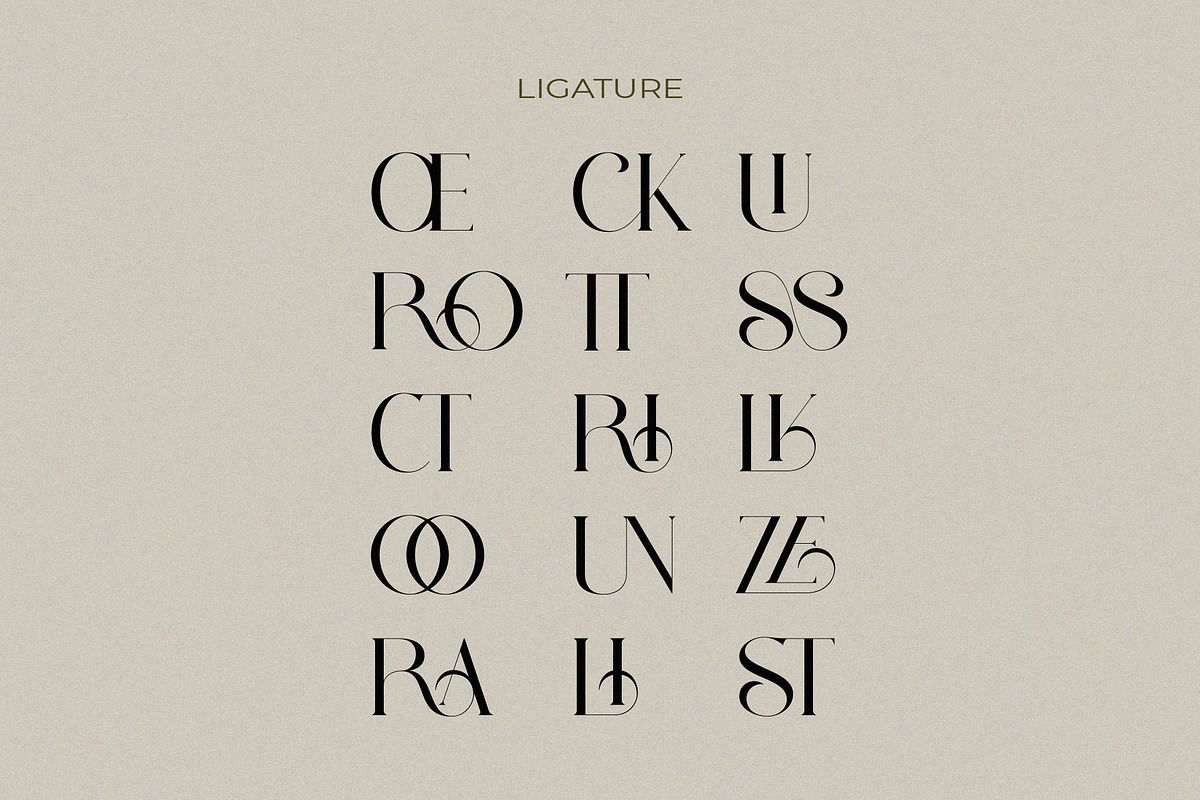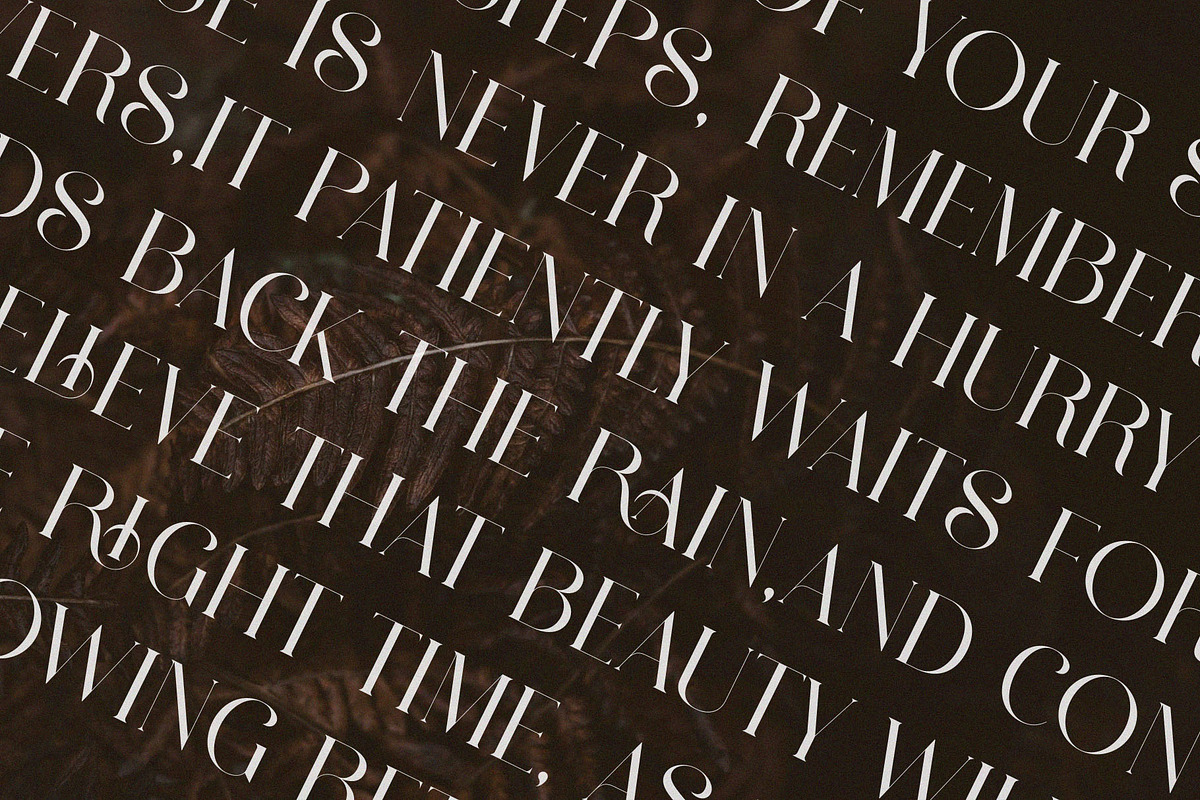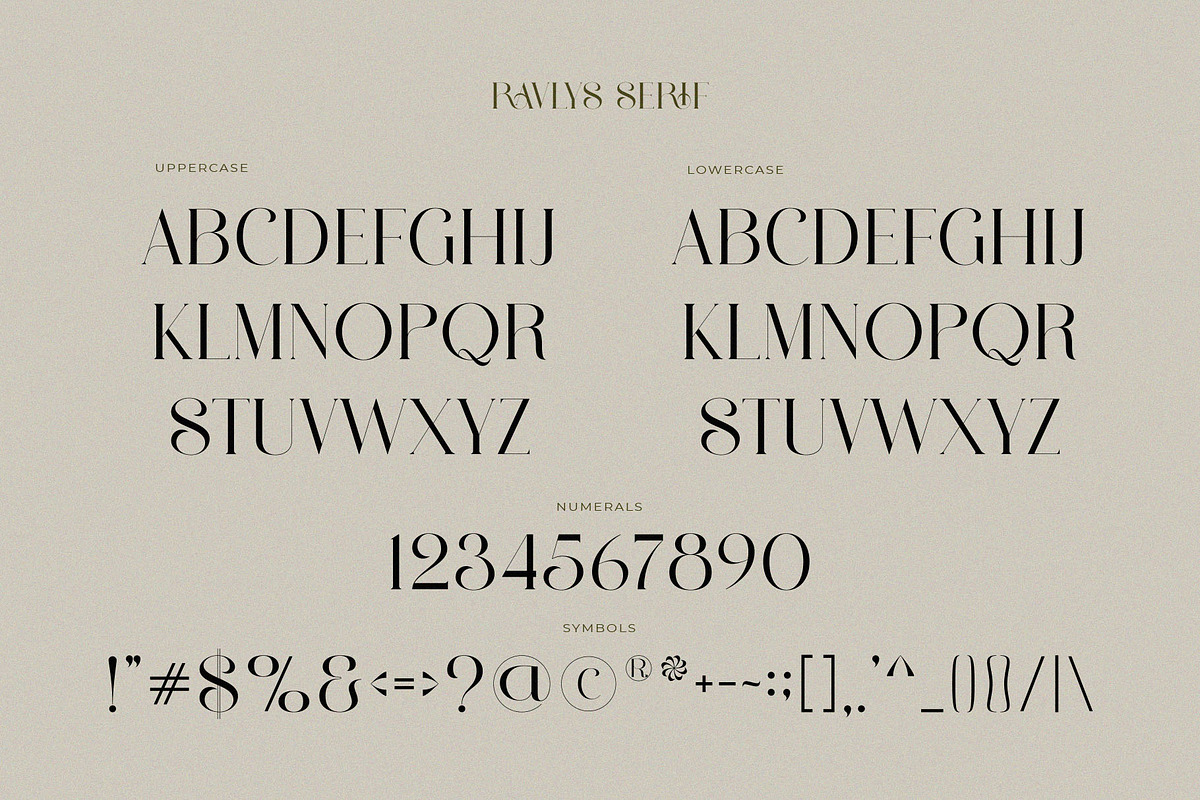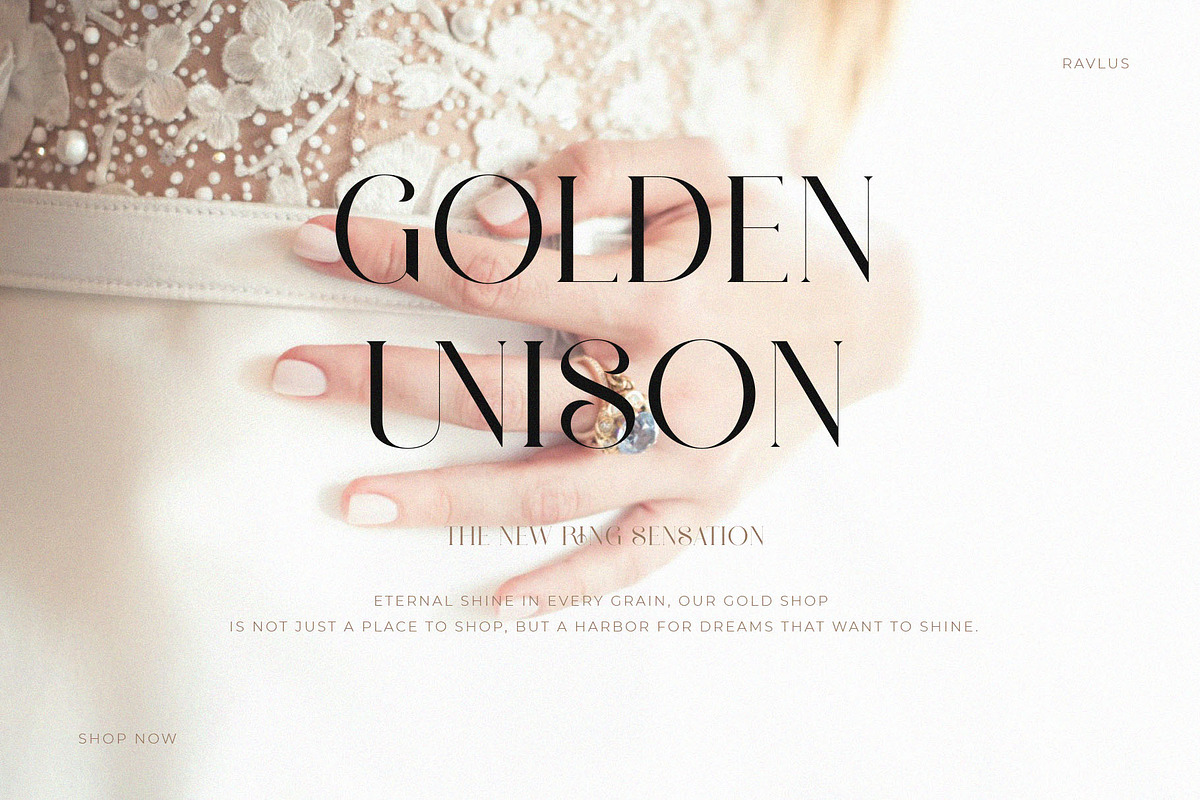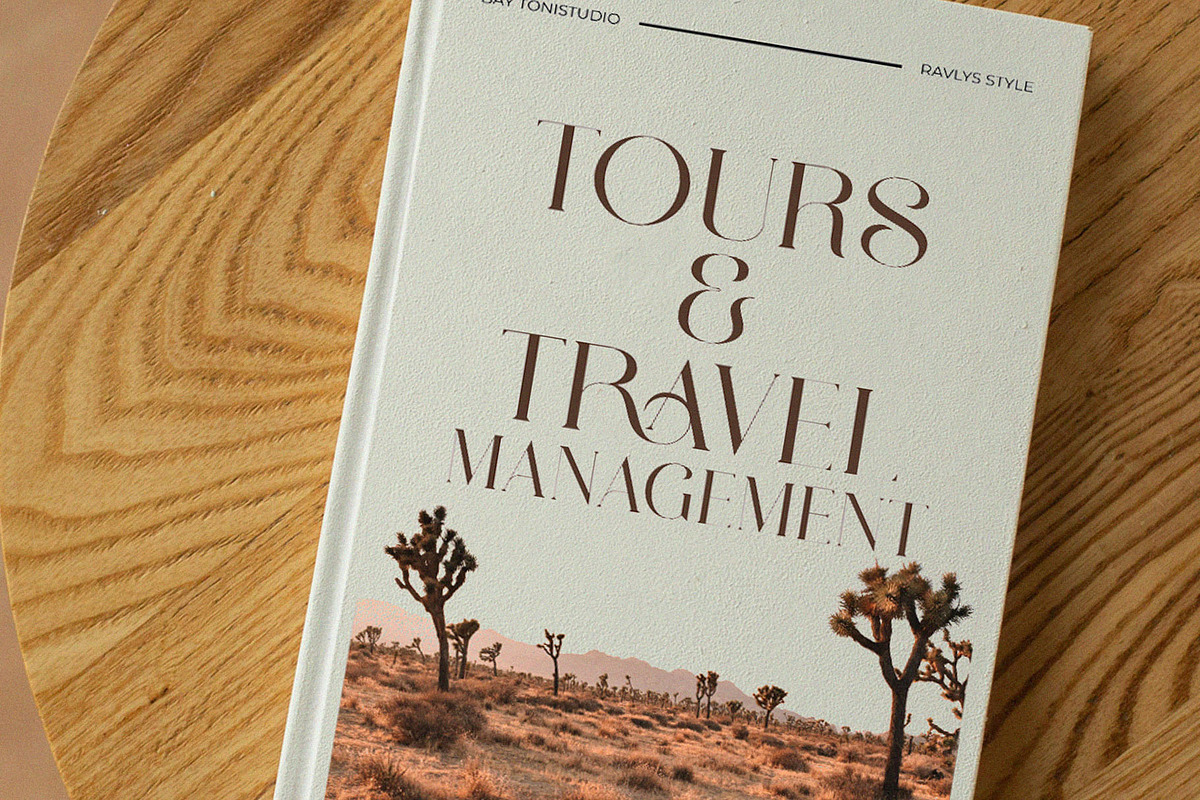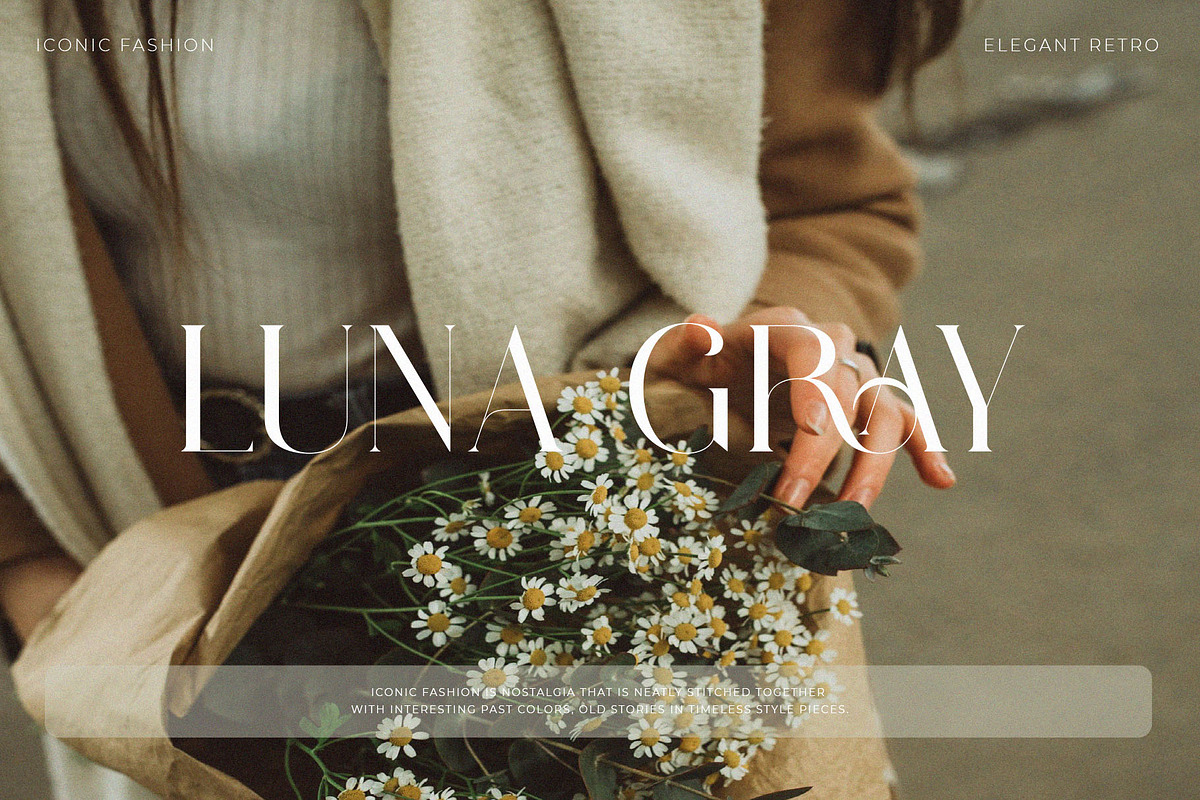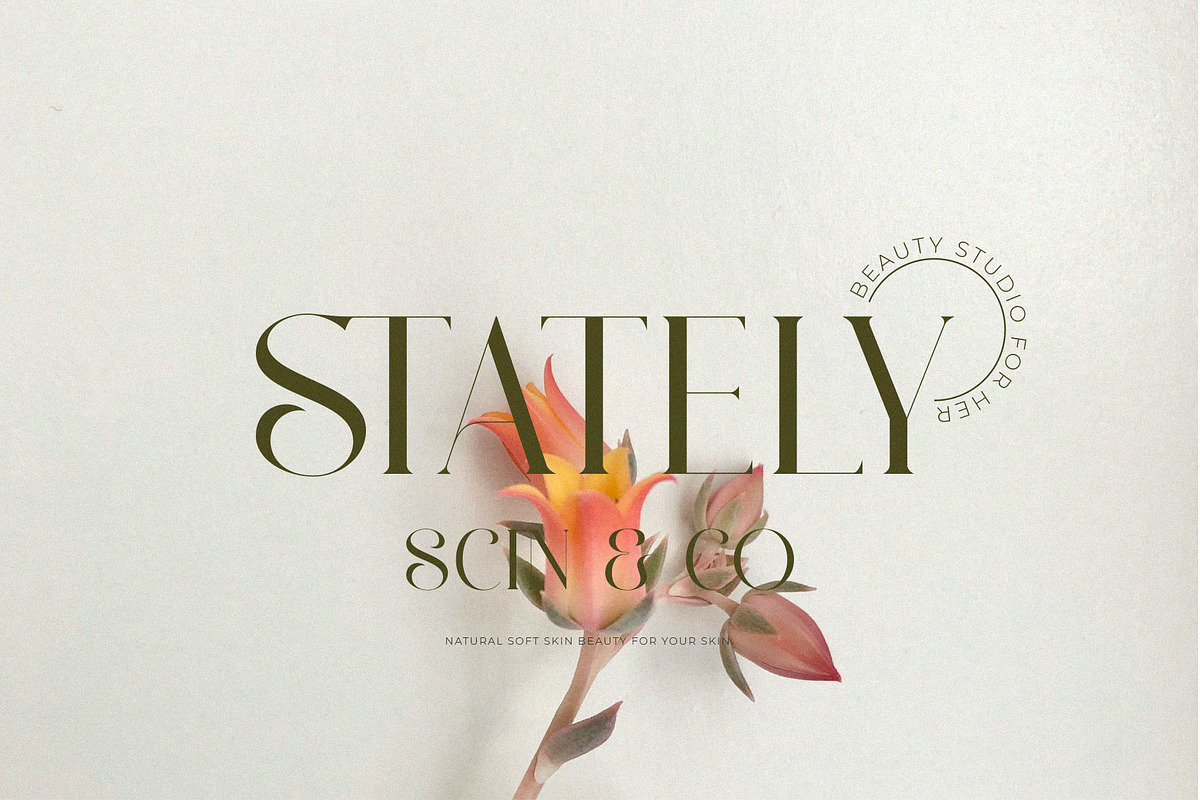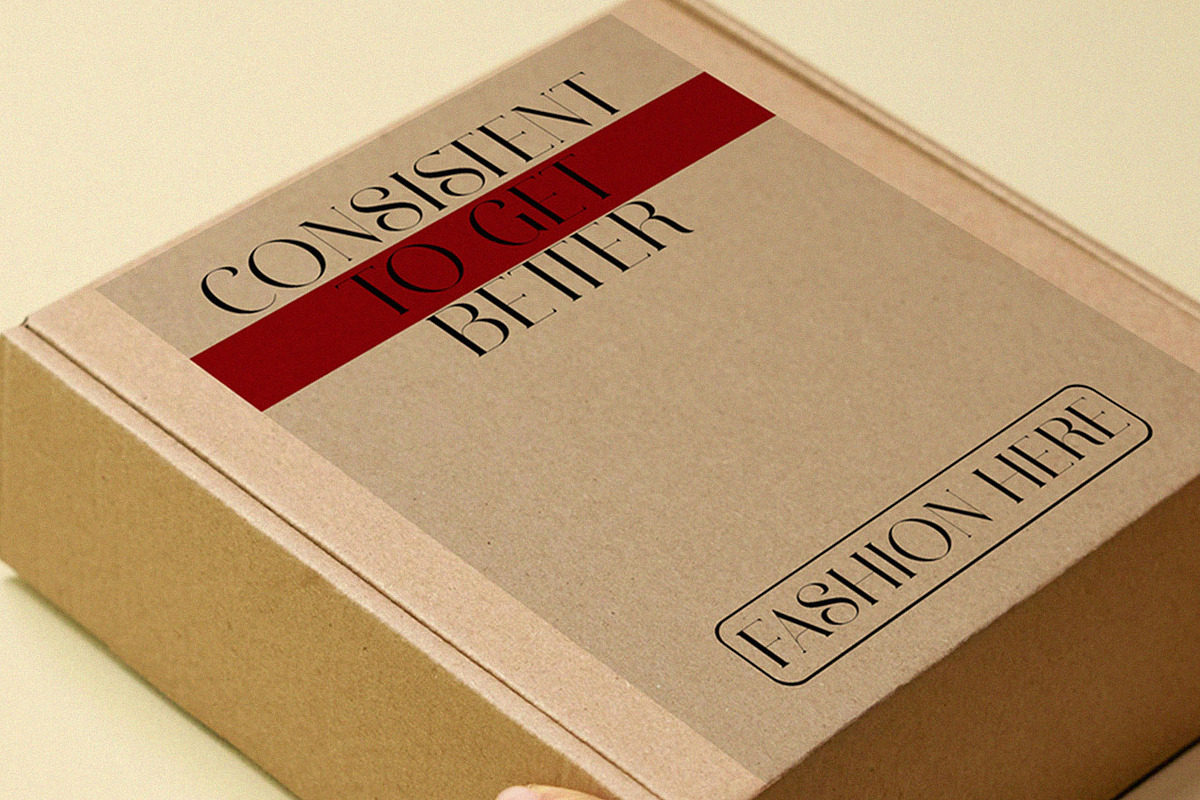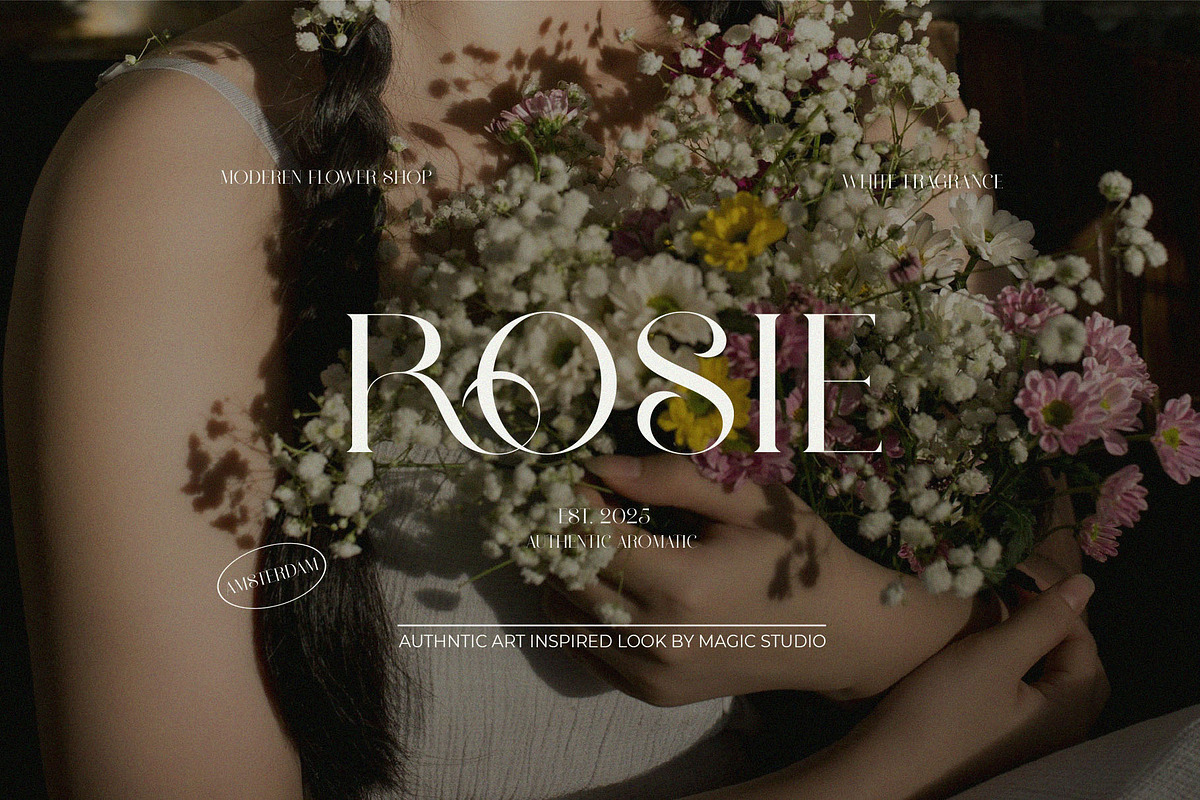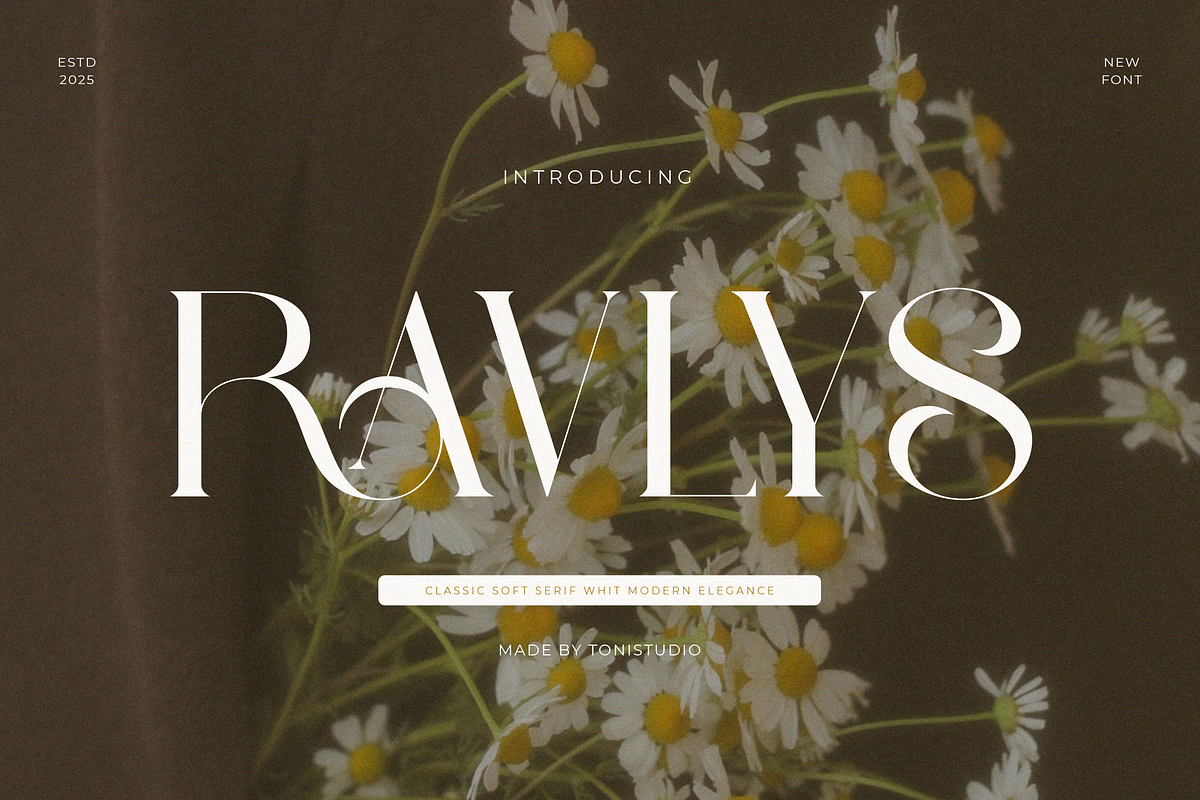
Ravlys - Classy serif
Ravlys is a charming and soft serif typeface that speaks with elegance and a gentle personality. With subtle curves and fine-tuned contrast, Ravlys is perfect for designs that need a touch of femininity and grace. Its sophisticated form makes it ideal for branding projects, wedding stationery, fashion editorials, and upscale packaging. The letterforms of Ravlys are carefully crafted to balance classic beauty with modern sensibilities, giving your designs a timeless yet fresh appeal. Whether you're creating a logo, a website header, or an invitation suite, Ravlys will elevate your message with elegance. Best used for luxury branding, Fashion labels, Editorial design, Invitations, Beauty products, Social media graphics, Romantic aesthetics
Elegant serif style
Uppercase & lowercase
Numerals & punctuation
Smooth curves and fine details